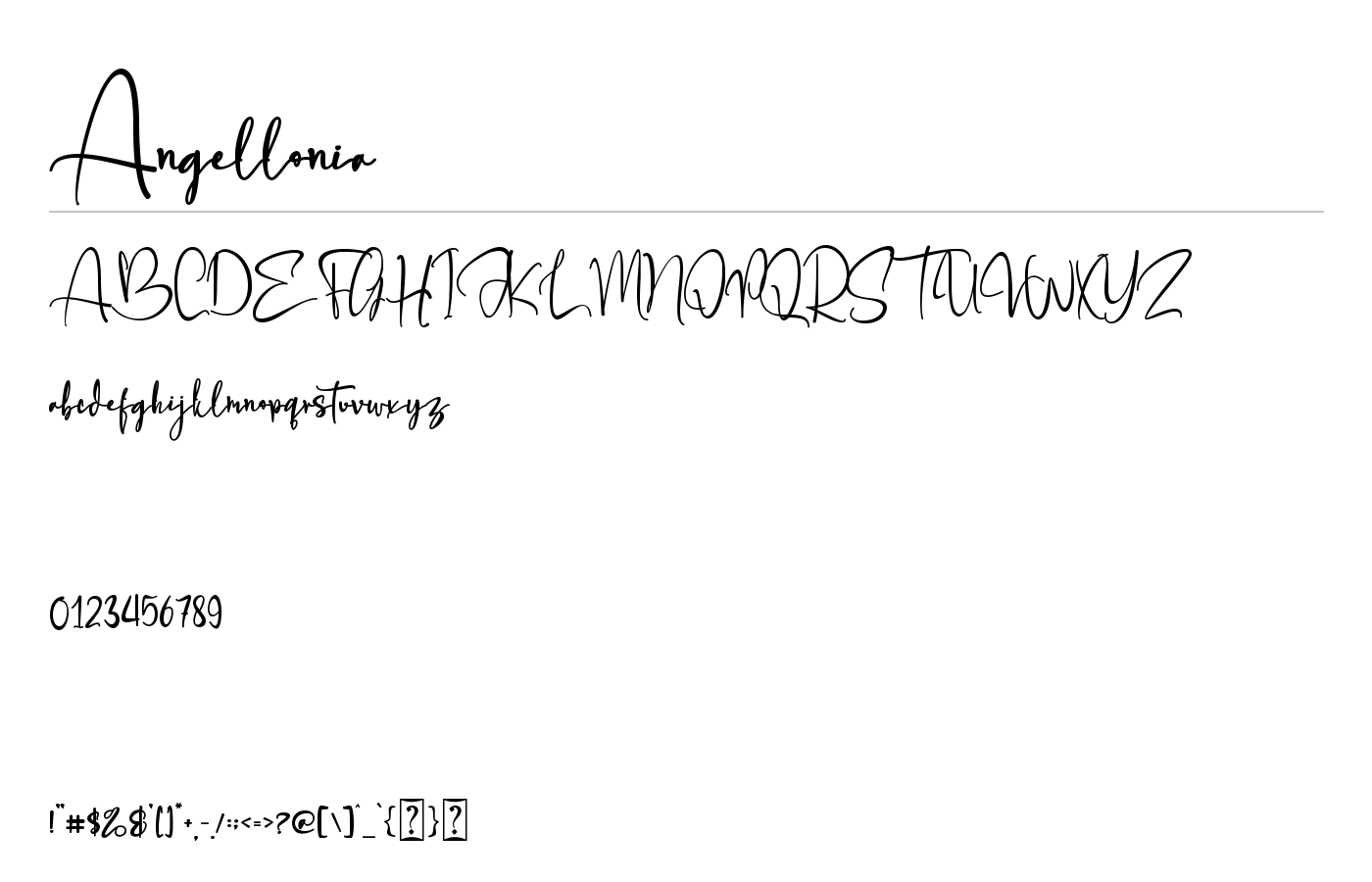
Angellonia is a delicate, handwritten script font that combines tall, airy letterforms with playful, irregular strokes to create a personal and artistic feel. Its contrast is light, with a graceful flow in both uppercase and lowercase characters, making it ideal for invitations, branding, and creative projects where a touch of elegance and whimsy is desired. This font works best in headlines and decorative uses where its unique charm can stand out.
Angellonia Font
About Angellonia Font